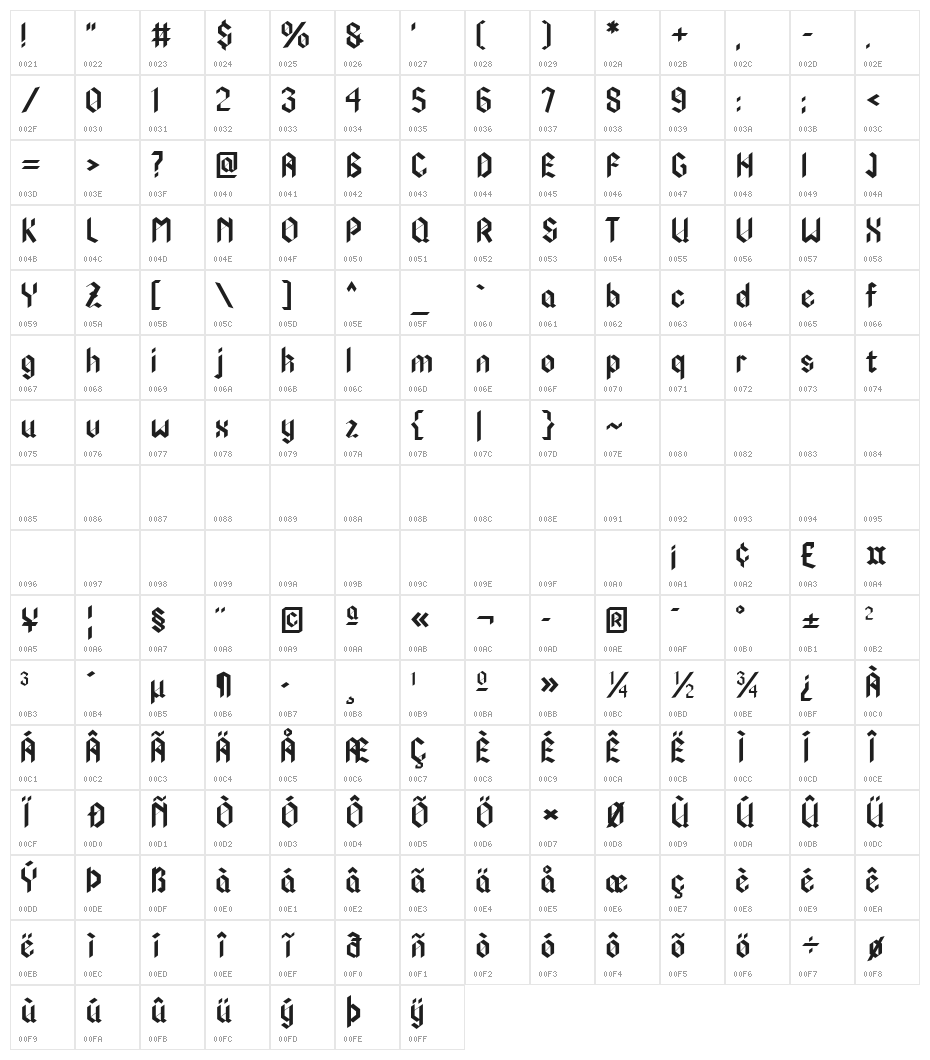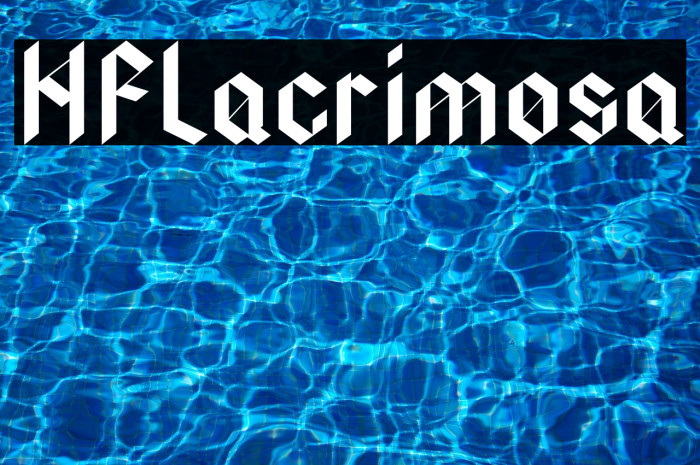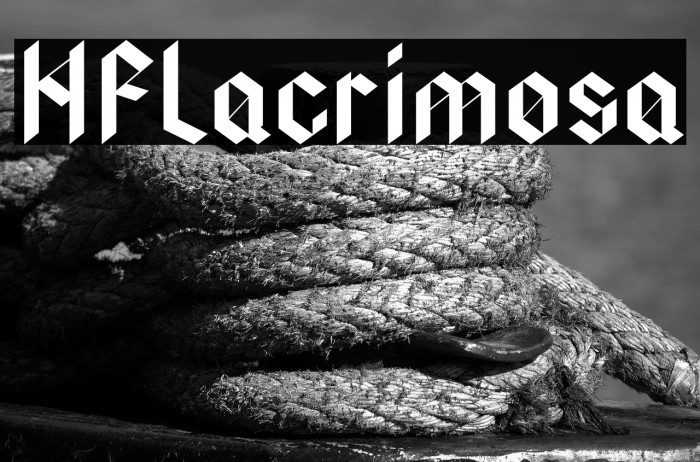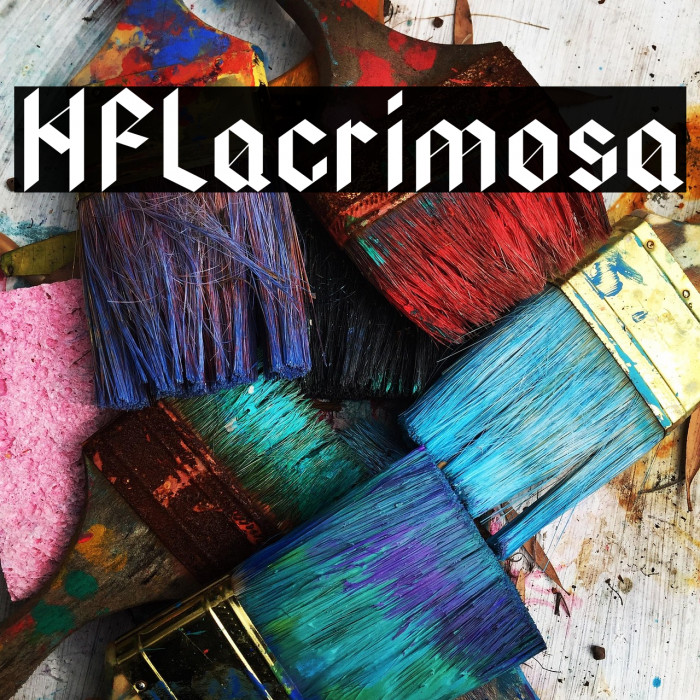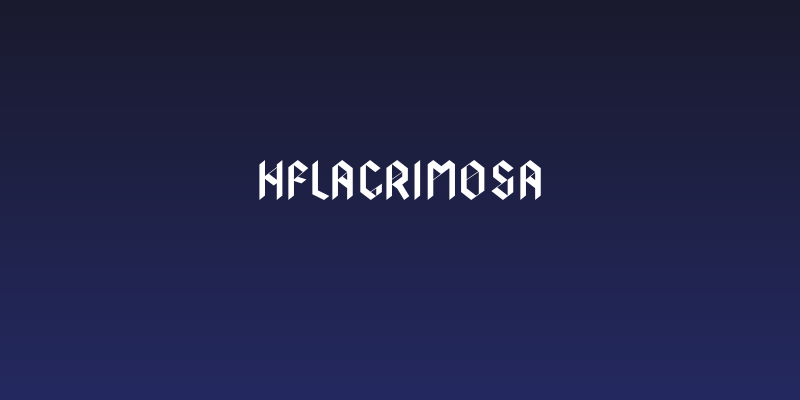
HFLacrimosa Font
HFLacrimosa Description
This font features a bold, angular design with a distinct geometric style. The characters are constructed with sharp, straight lines and pointed edges, giving it a modern and edgy appearance. The uppercase and lowercase letters maintain a consistent height, creating a uniform look across the text. Numbers and special characters are designed with the same angular precision, ensuring a cohesive visual experience. The font's unique style makes it stand out, suitable for projects that require a strong, impactful presence.